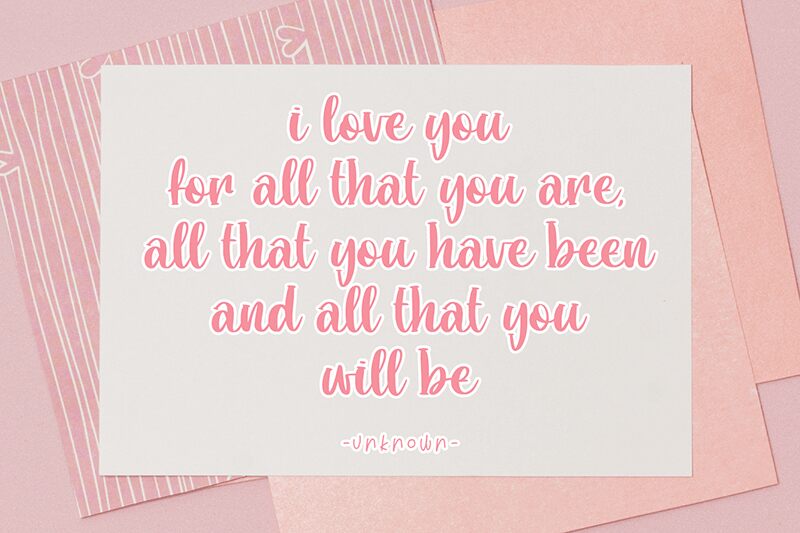
Deallove is a bold crafty calligraphy font designed by Panggah Laksono. It's perfect for projects that need an elegant, stylish touch such as wedding invitations, greeting cards, logos and branding.
Deallove
Panggah Laksono